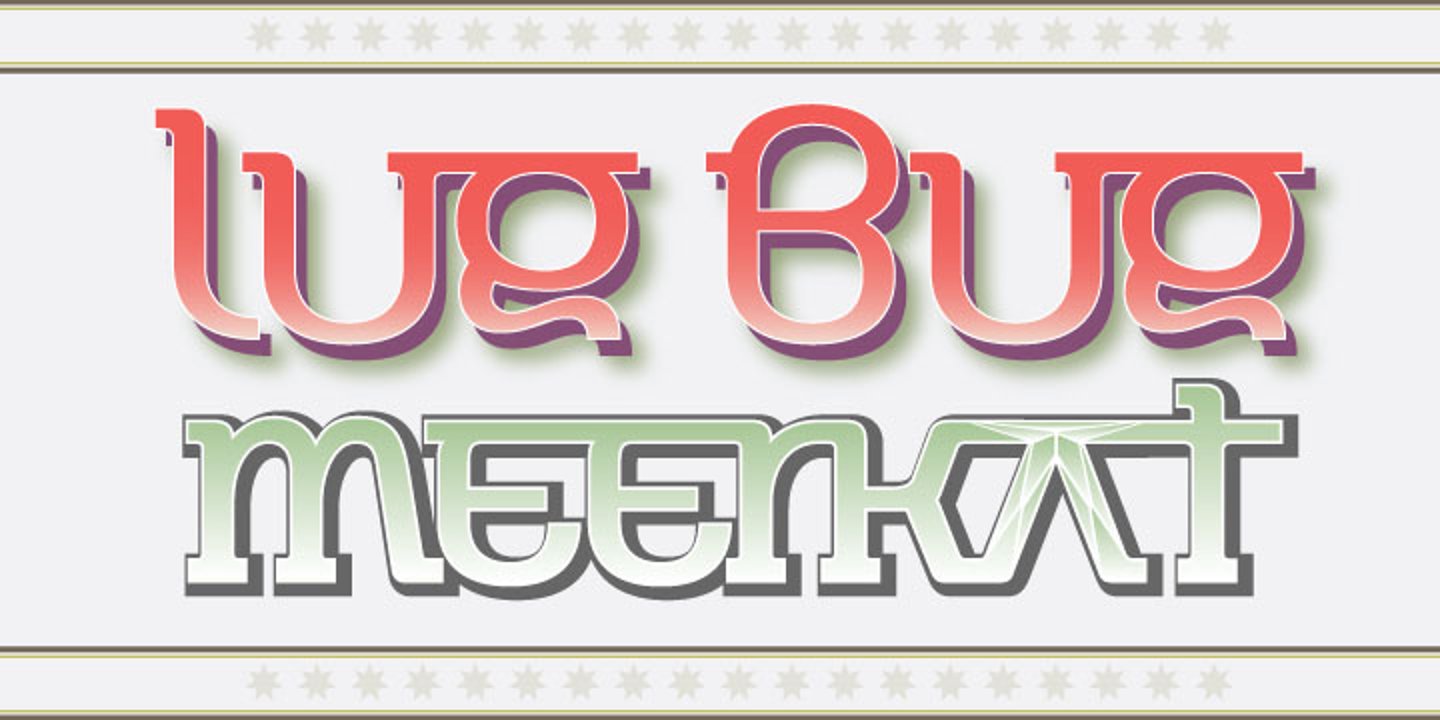
Zygon Regular is a shape changing, unicase display font inspired by British cultures and transcultural theory. Zygon Regular was inspired by the 2012 Royal Diamond Jubilee and the notion that the Jubilee, as a multicultural event, would feature celebrations inclusive of all cultures. The typeface is based on the Panjabi syllabary alphabet (Gurmukhi script) combined with the Latin alphabet. Zygon Regular contains a set of stylistic alternates as well as a range of standard and discretionary ligatures. These are accessible in applications that support OpenType features. Zygon Regular is especially suitable as a headline font for designs seeking a cultural edge.